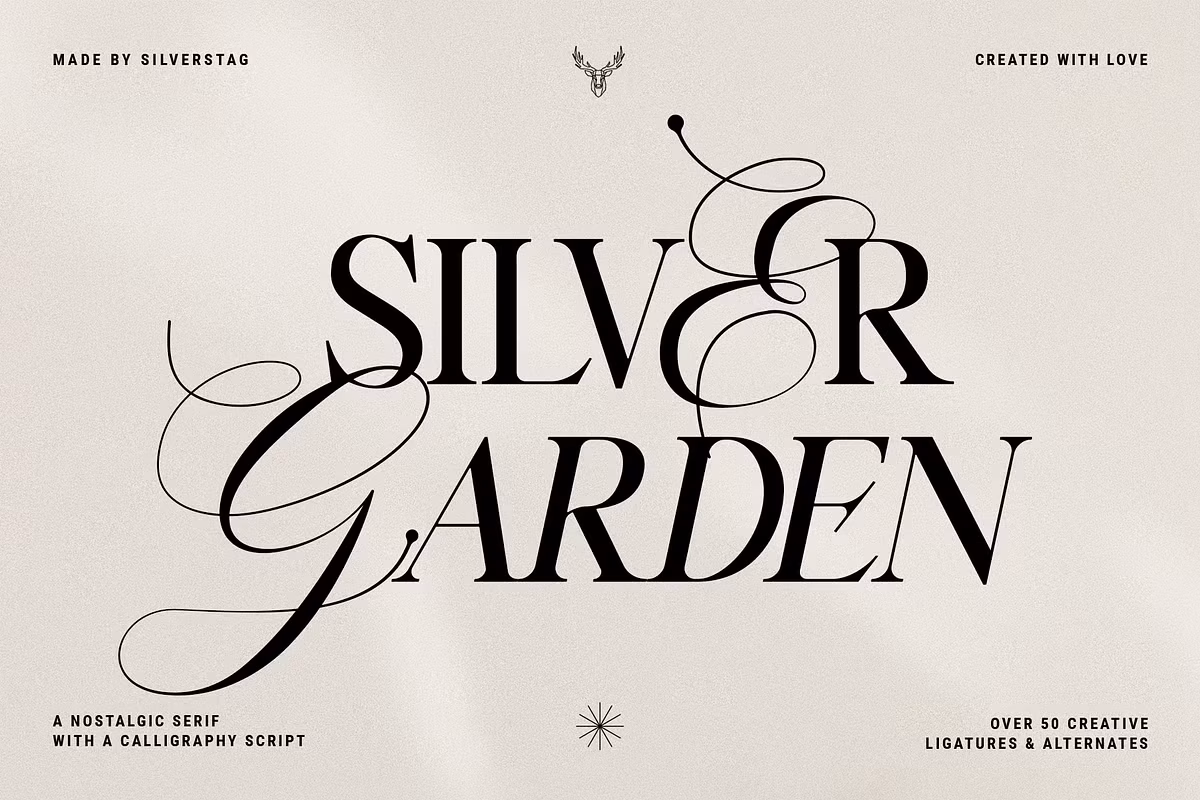
Silver Garden - Nostalgic Font Duo Free Download
Silver Garden - Nostalgic Font Duo Free Download is a beautifully crafted font pair designed to evoke a sense of vintage charm and nostalgia. This duo features a combination of a stylish serif font and an elegant script, providing versatility for all kinds of creative projects.
The serif font offers a timeless, structured feel, while the script brings an organic, handwritten touch. Whether you're working on branding, invitations, logos, or any design that needs a mix of sophistication and personal flair, Silver Garden gives you the perfect balance of old-world elegance and modern style.